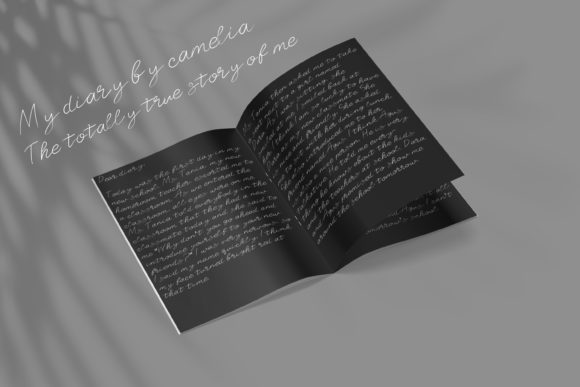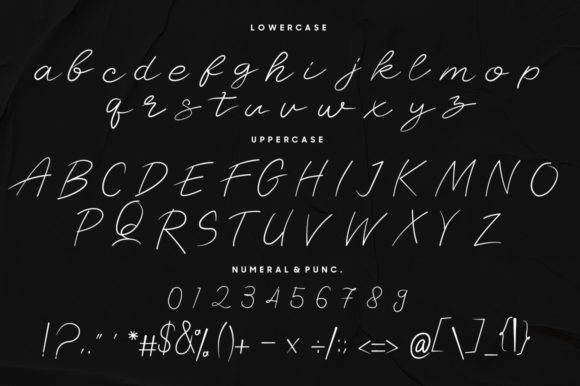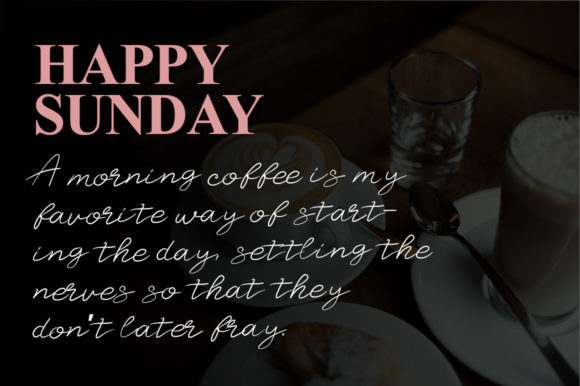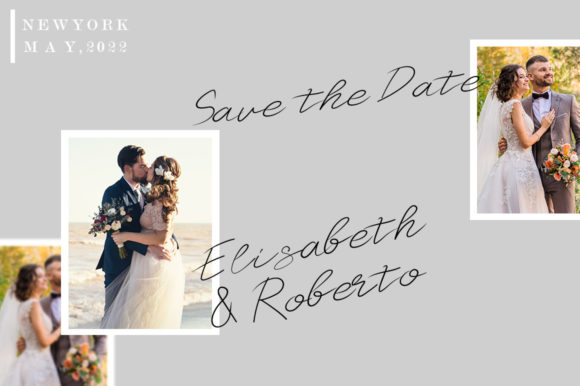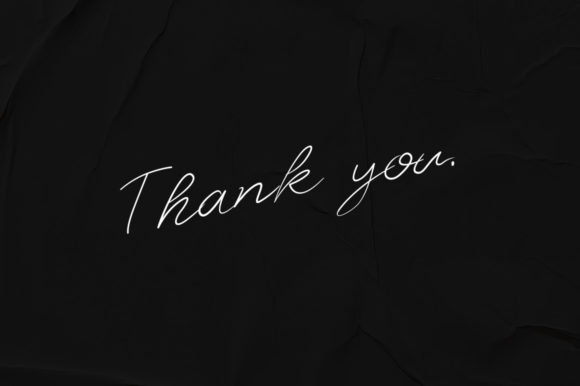
Discover the Perfect Signature Font for Your Brand
As designers, we’ve all been there – staring at a blank canvas, waiting for inspiration to strike. It’s in these moments that we often find ourselves daydreaming about the perfect font, the one that captures the essence of our brand and leaves a lasting impression. For those seeking a touch of elegance and sophistication, look no further than the Camelia Stylish Signature Font.
This beautiful font is designed to evoke the feeling of handwritten elegance, making it perfect for branding projects, logo designs, and wedding invitations. With its classic and refined style, the Camelia Stylish Signature Font is a valuable asset for designers looking to add a personal touch to their work. Whether you’re creating a product label, social media post, or product packaging, this font is sure to elevate your designs and leave a lasting impression.
Camelia Stylish Signature Font Features
- Font Style: Elegant, cursive script with a touch of sophistication
- Unique Characteristics: Includes swashes, flourishes, and ligatures for a more dynamic look
Designer Review: Camelia Stylish Signature Font
Overall, I think the Camelia Stylish Signature Font is a decent addition to any designer’s toolkit. It’s a beautiful script font that exudes elegance and sophistication. ✨ Here are some things that work well:
- High-quality vector graphics, which means it scales well for both small and large text sizes.
- Beautiful ligatures that create a seamless flow between letters.
- Support for a wide range of languages, making it a great choice for international projects.
- Extensive character set, including punctuation and numerals.
- The font may be too ornate for certain projects, such as body text or headlines that require a more straightforward approach.
- The weight of the font can make it difficult to read in smaller sizes or at a distance.
- The font is not optimized for digital use, which can lead to pixelation or blurriness on certain devices.
Overall, I would recommend the Camelia Stylish Signature Font for projects that require a touch of luxury and sophistication, such as wedding invitations, luxury branding, or high-end marketing materials. Just be mindful of its limitations and use it judiciously.
The Camelia Stylish Signature Font is ideal for creating personal signatures, logo designs, and branding materials. It can also be used for creating stylish titles, headings, and body text in various design projects.
The Camelia Stylish Signature Font includes a comprehensive character set, covering Latin, Cyrillic, and Greek alphabets, as well as a range of punctuation and special characters. This ensures that you have all the characters you need to create professional-looking designs in multiple languages.